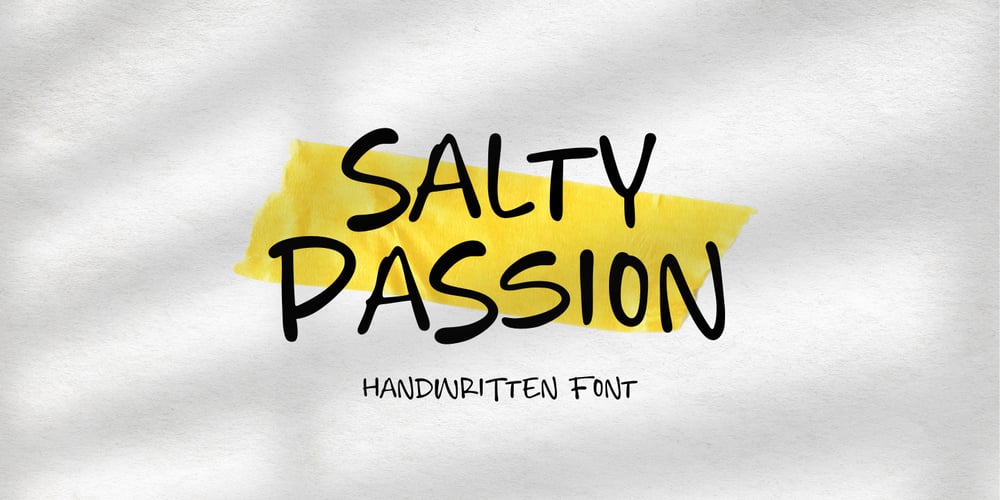
Salty Passion Font Family was designed by Muhamad Yusron Billah and published by Sronstudio. Salty Passion contains 1 styles and family package options. “Salty Passion” is a charming natural handwritten font that captures the essence of personal touch and warmth. With its fluid strokes and authentic penmanship, this font brings a casual yet elegant feel to your projects. Perfect for personal branding, wedding invitations, lifestyle blogs, and heartfelt quotes, “Salty Passion” adds a sense of intimacy and sincerity. Its natural look makes it a versatile choice for any design that seeks to connect on a personal level.Included:-Uppercase & Lowercase- Numeral & Punctuation- PUA Encoded- Multilingual support- Simple Installation- Work both on Mac and WindowsThank you very much ๐